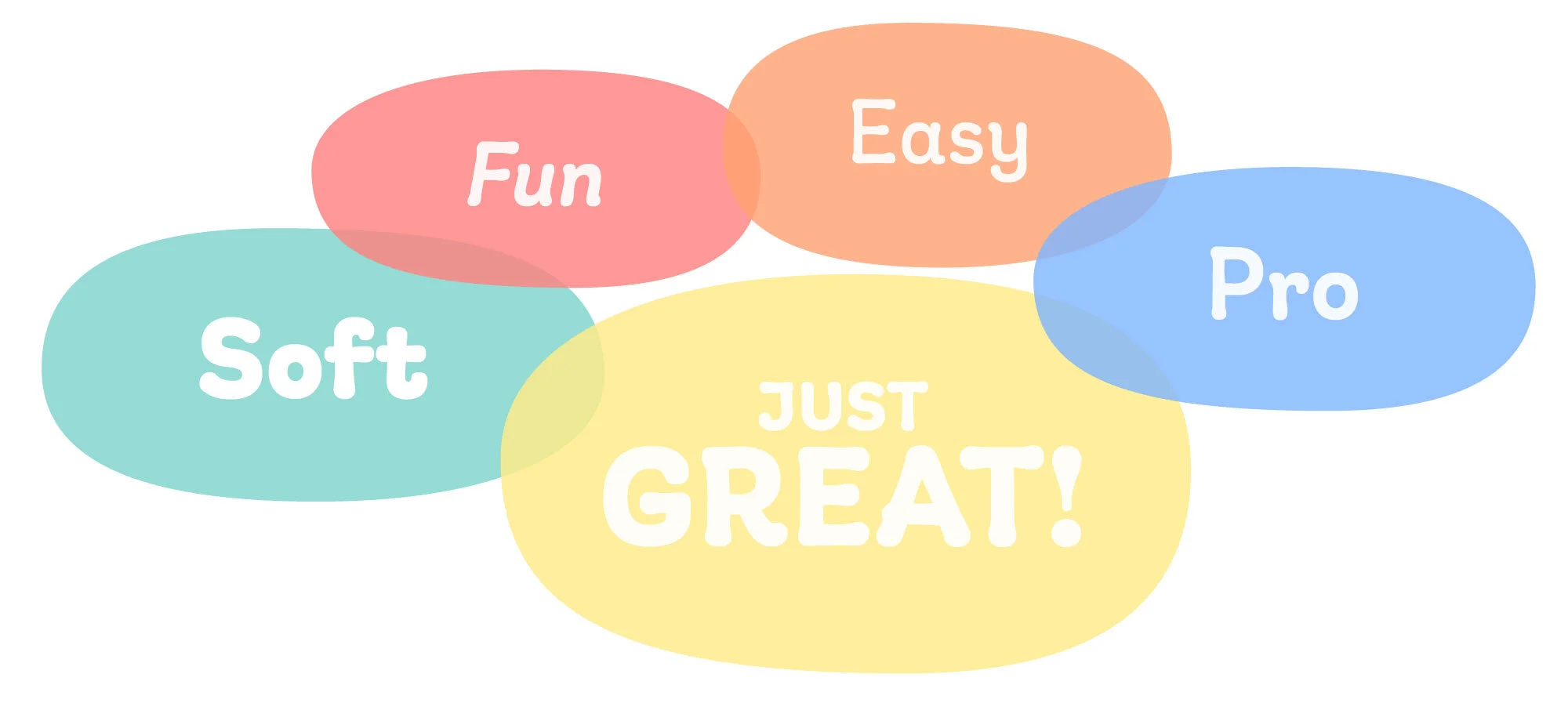
Giulia Plain
A plain sans-serif companion from HvD Fonts, likely designed to pair with a more expressive script or calligraphic variant of Giulia.
Giulia Plain sits within the HvD Fonts catalogue as the clean, upright counterpart to what appears to be a broader Giulia family with calligraphic roots. The 'Plain' suffix suggests a functional text-weight companion stripped of decorative influence, suited to body text and UI work. Page content was unavailable at time of indexing, so details on weights and language coverage are provisional.
The 'Plain' designation suggests a clean, unadorned sans-serif; HvD Fonts typically produces humanist-leaning text faces, and the name Giulia Plain implies a companion to a more calligraphic or script-influenced family.